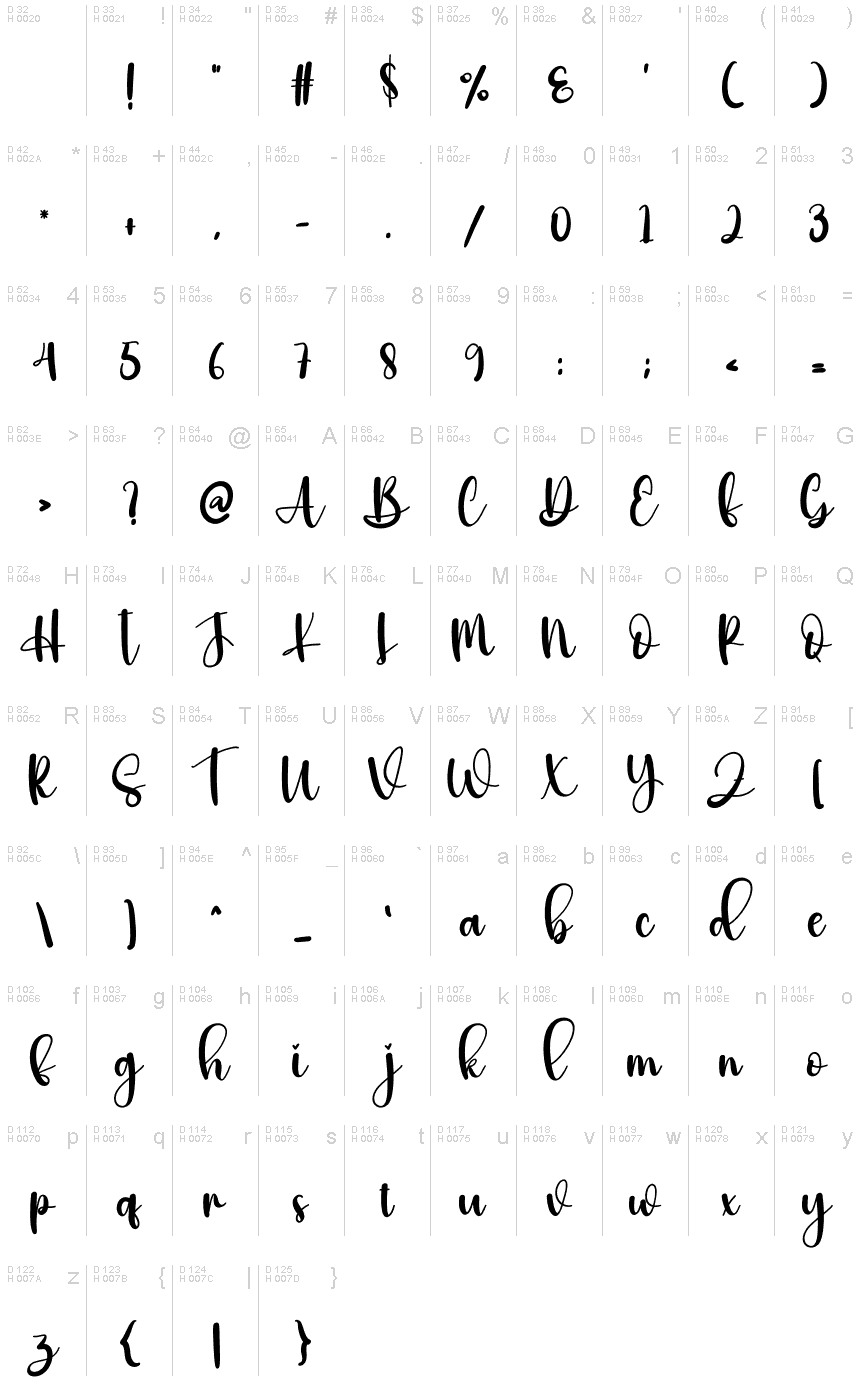
Vacation Honeymoon
Vacation Honeymoon, designed by Scratchones, is a charming handwritten font with a calligraphic touch. Its semi-light weight adds an elegant and airy feel to any project it graces.
This delightful font type is perfect for wedding invitations, romantic greeting cards, and love-themed blog headers, evoking feelings of warmth and affection. Additionally, Vacation Honeymoon's playful yet refined style makes it an excellent choice for fashion magazines, travel brochures, and lifestyle blogs seeking a touch of whimsy.